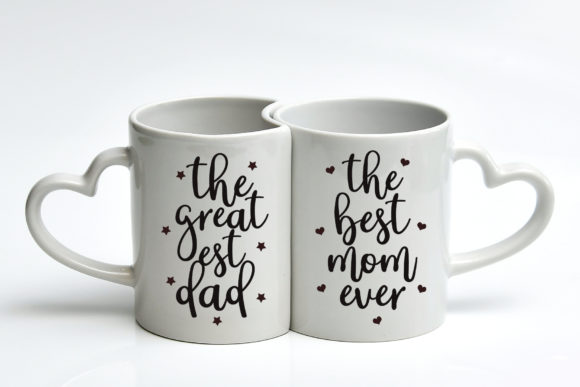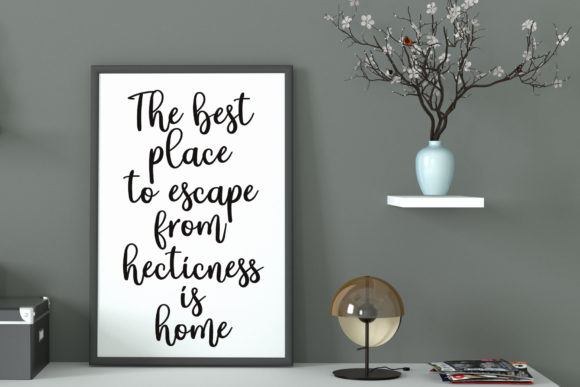
Pretty Burger Font
db-ku.com - Script & Handwritten -- Pretty burger is a simple, casual handwritten font. It looks stunning on thank you cards, quotes, greeting cards, logos, business cards and every other design which needs a handwritten touch.